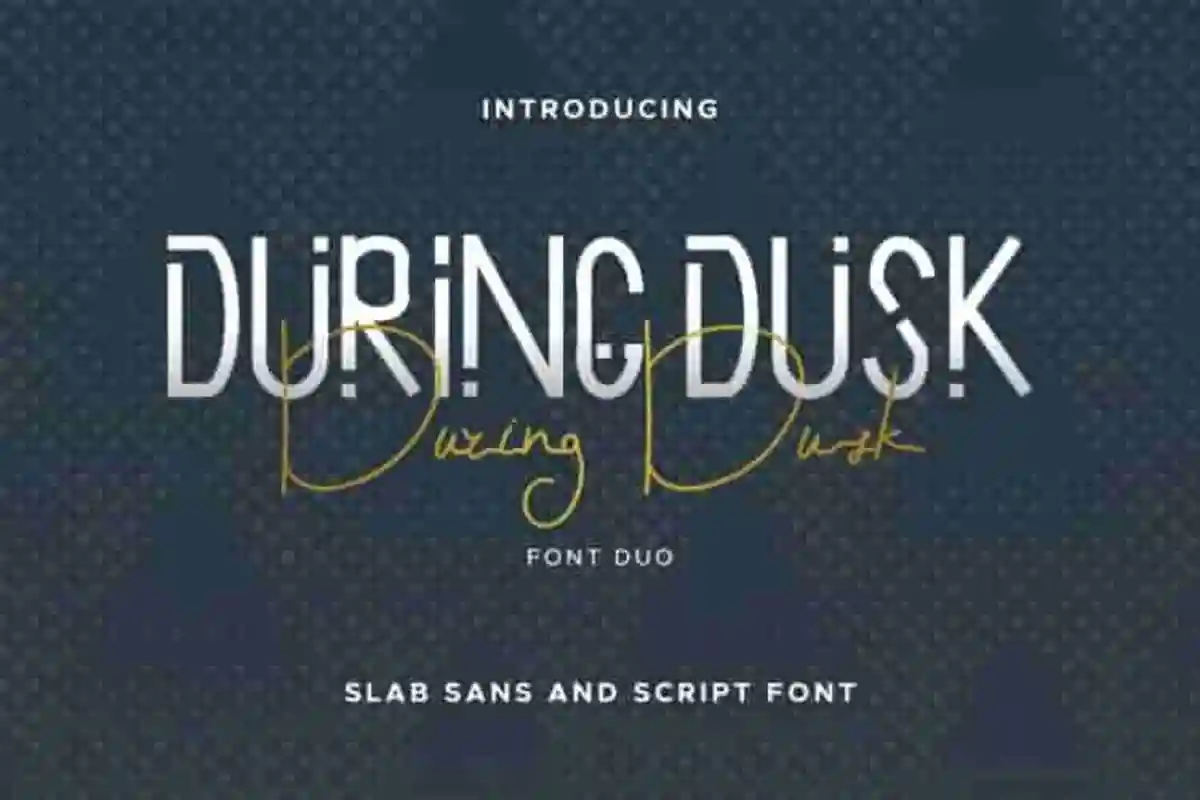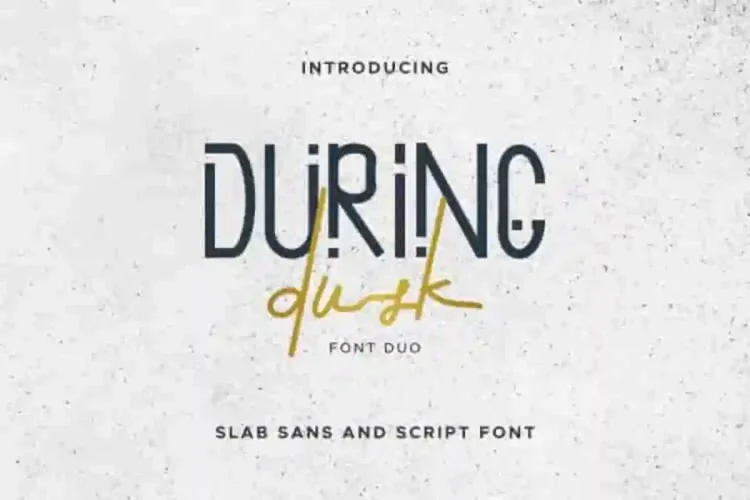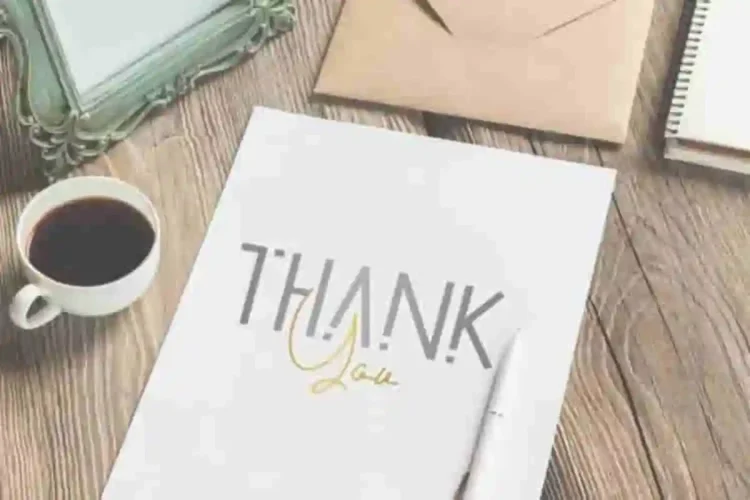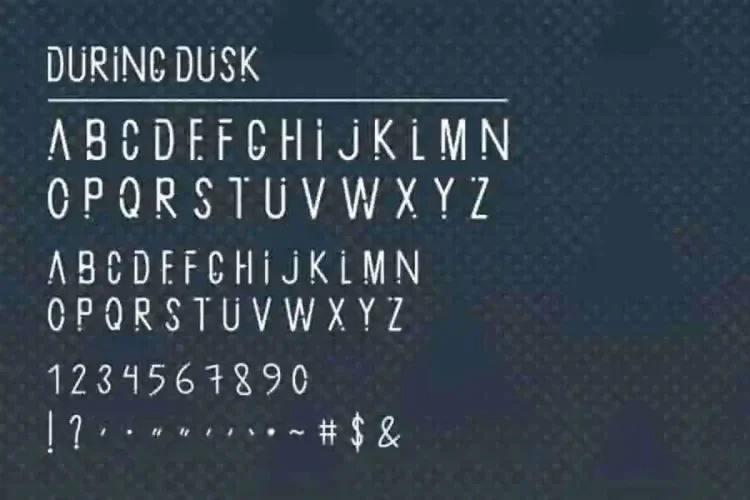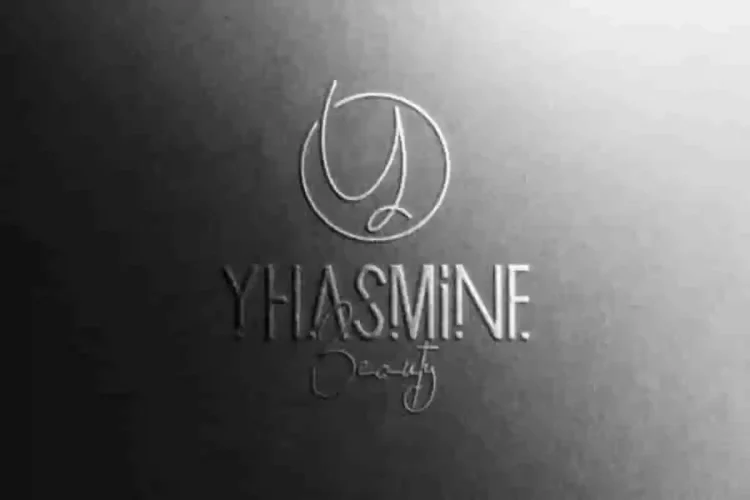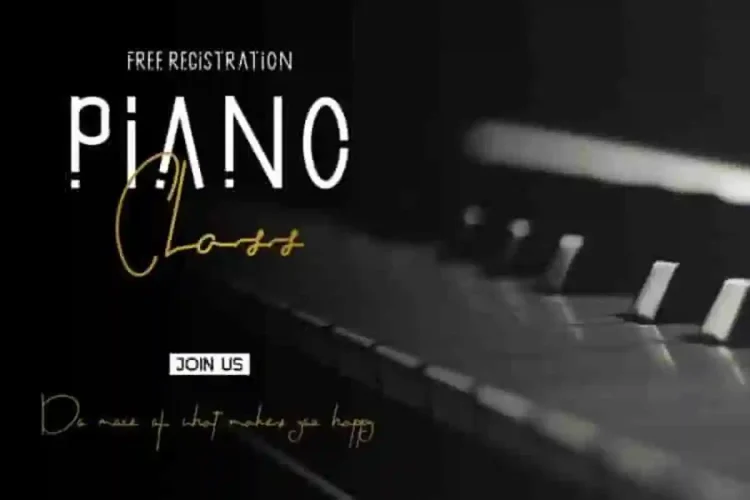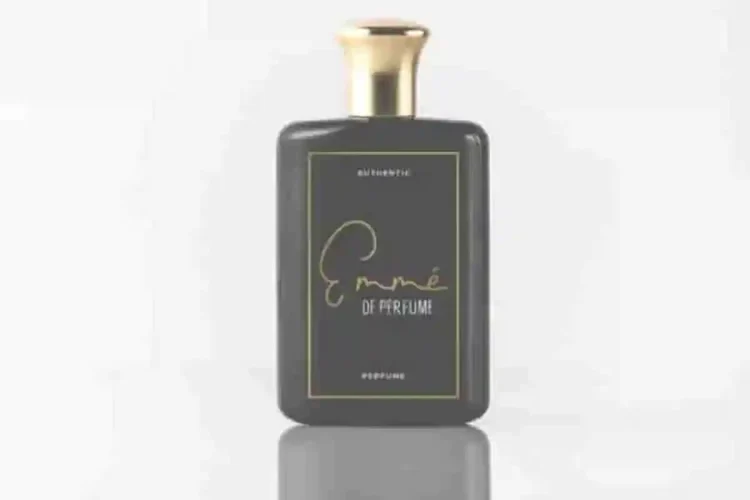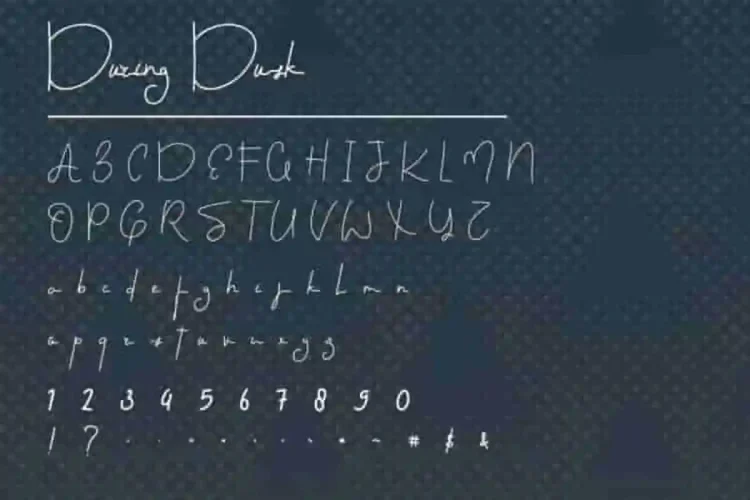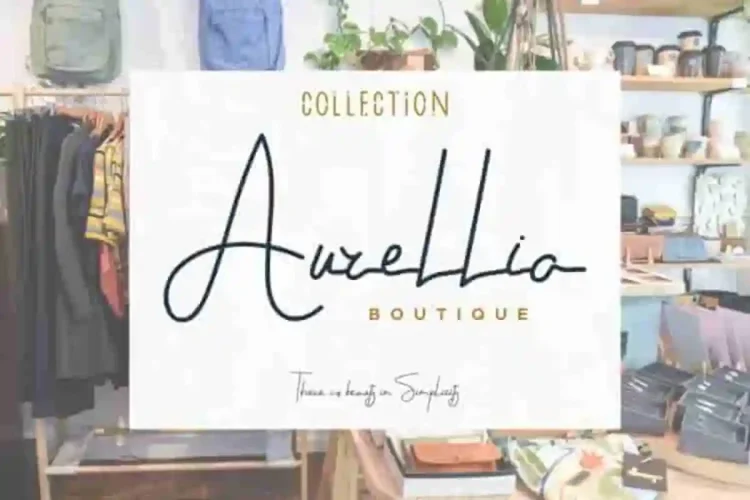
During Dusk Calligraphy Script Font Duo
This is the newest font from Three of our lovely artists : Saila and Sarah. This is a font duo handcrafted from our Studio in Garut and Bandung, Indonesia.
During Dusk Calligraphy Script Font Duo is an exclusive duo typefaces with unique and elegant style. The typeface has a stunning characters set, perfectly kerned and spaced. The style character of this font is elegant, stylish, sophisticated and classic signature style. It’s exclusive you wont find any where-else, the font like During Dusk.
During Dusk Calligraphy Script Font Duo has two different font styles: Slab Sans and Signature script font.
During Dusk Calligraphy Script Font Duo Font will be great for any projects including : branding, logo, stationery, business card, signage, flyer, brochure etc. Almost all industries will be match for this typeface: wedding, events, real estate, architect, law firm, florist, gardening, makeup artist, travel, hotel, musician etc.